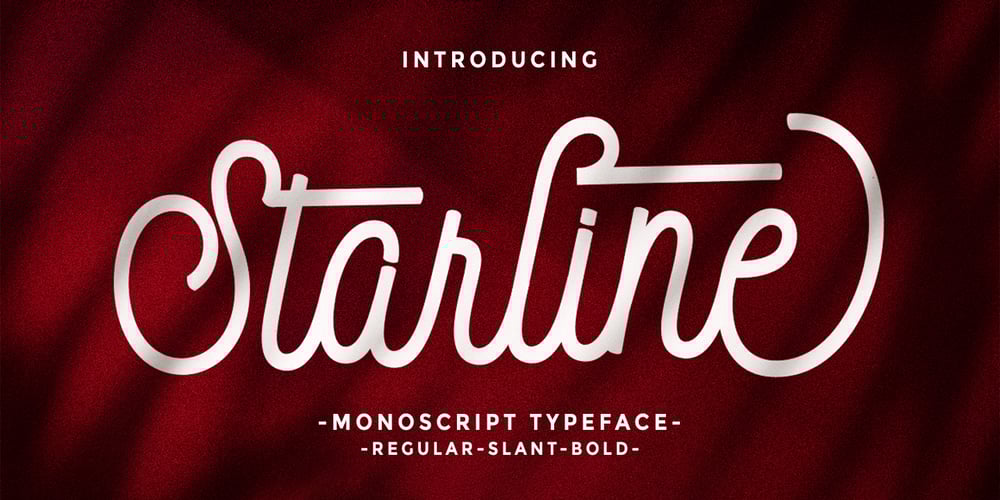
Starline
Starline font
Starline Font Family was designed by Rizki Andika and published by Letterfreshstudio. Starline contains 3 styles and family package options. Starline Script is a sweet monoline font, with a casual and dynamic baseline, This font can be used easily and simply, perfect for branding, logos, greeting cards, wedding stationery, quotes and more.It comes with a handy set of OpenType Stylistic Alternates, Ligatures and multiple language support. To enable the OpenType Stylistic alternates, you need a program that supports OpenType features such as Adobe Illustrator CS, Adobe Indesign & CorelDraw X6-X7, Microsoft Word 2010 or later versions.These coded with PUA Unicode. Mac users can use Font Book and Windows users can use Character Map to view and copy any of the extra characters to paste into your favourite text editor/app.How to access all alternative characters, using Windows Character Map with Photoshop:https://www.youtube.com/watch?v=Go9vacoYmBwHow to access all alternative characters using Adobe Illustrator:http://youtu.be/iptSFA7feQ0nn